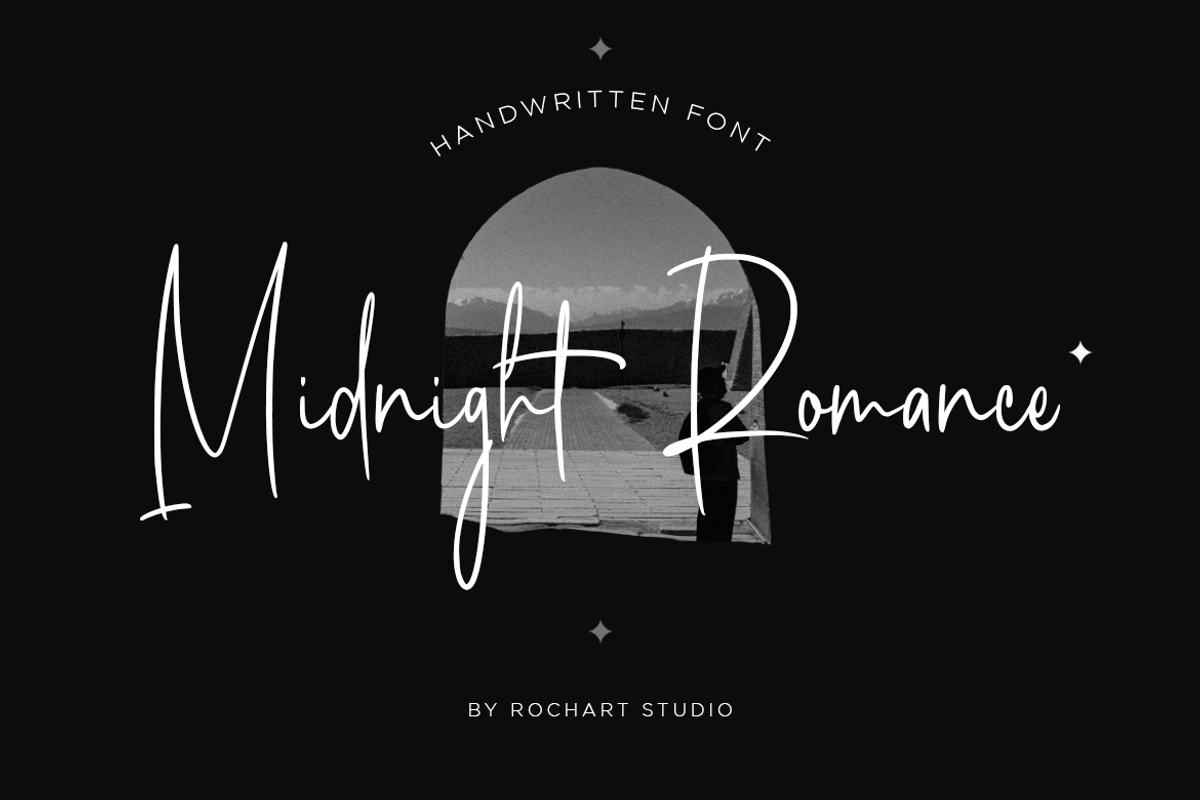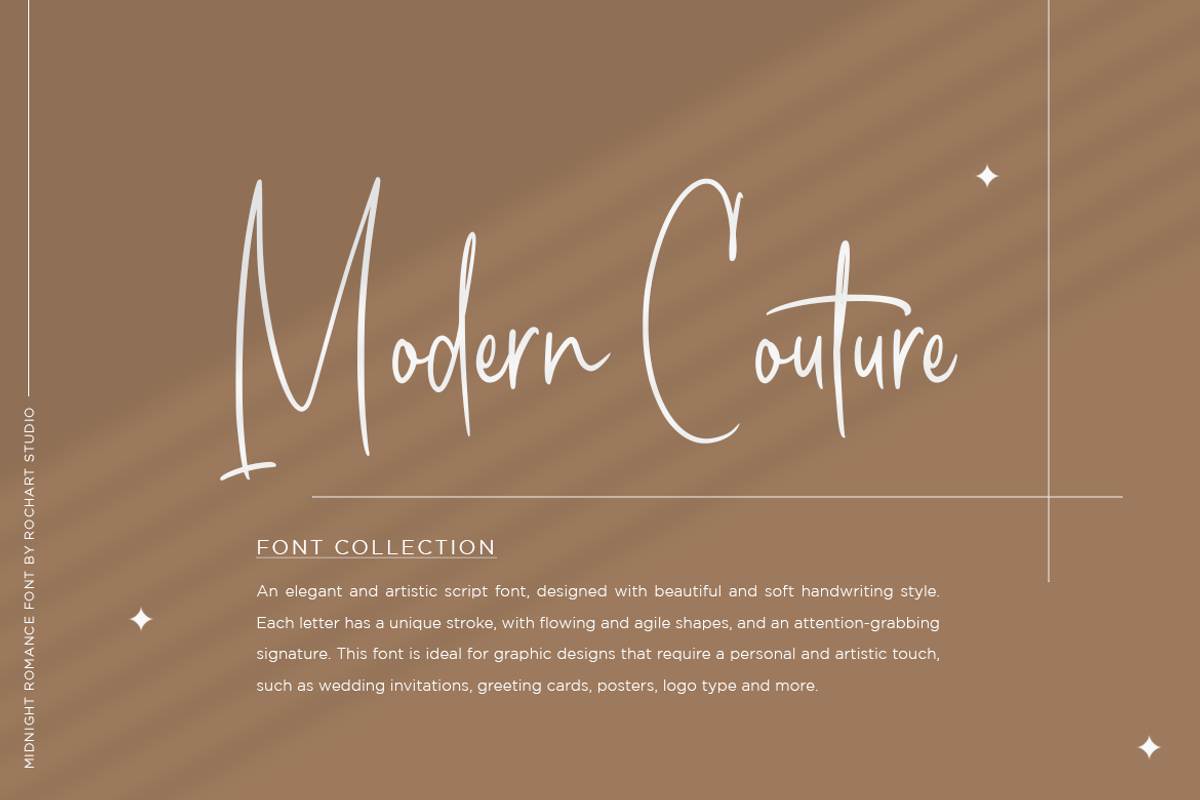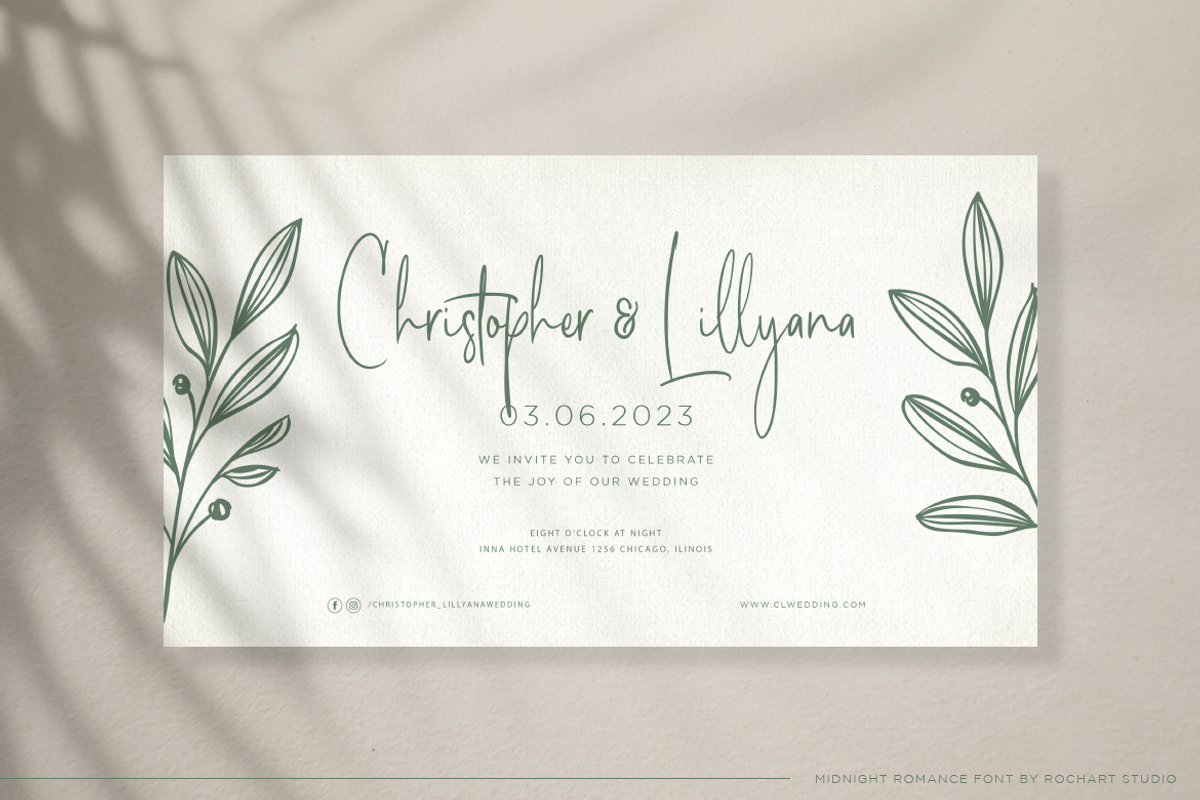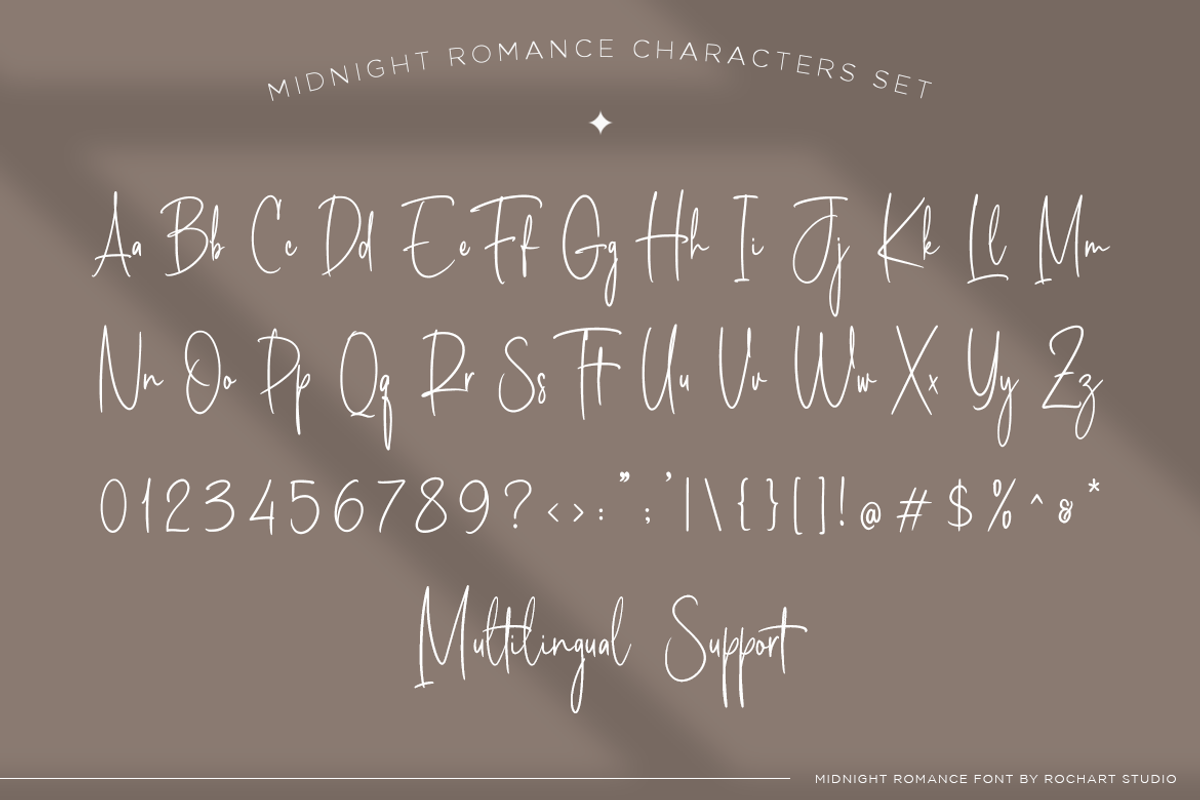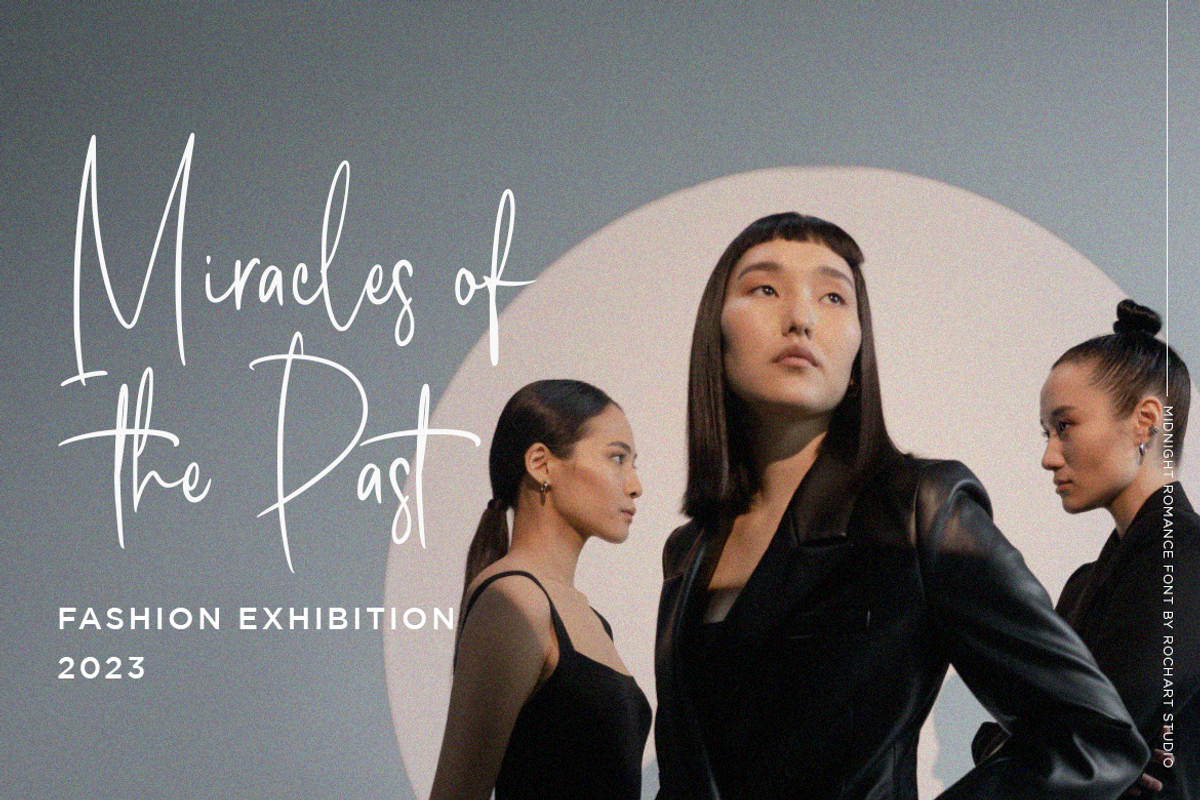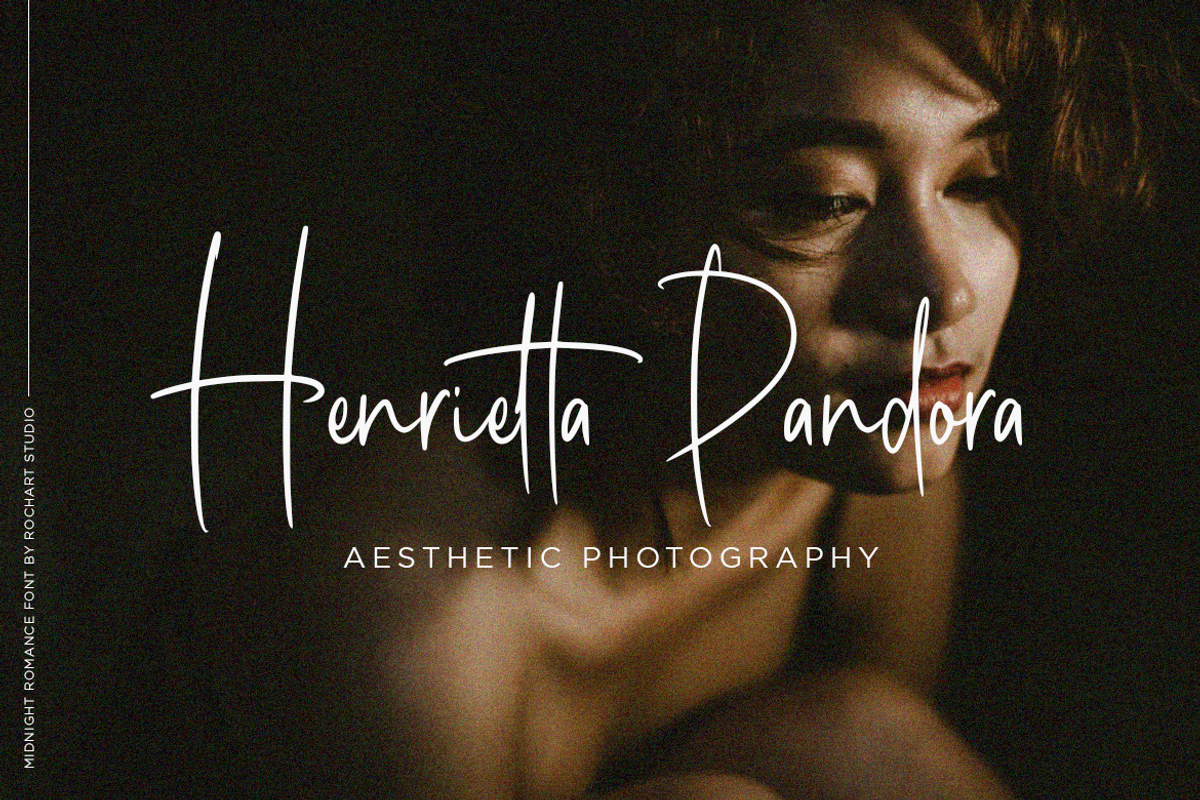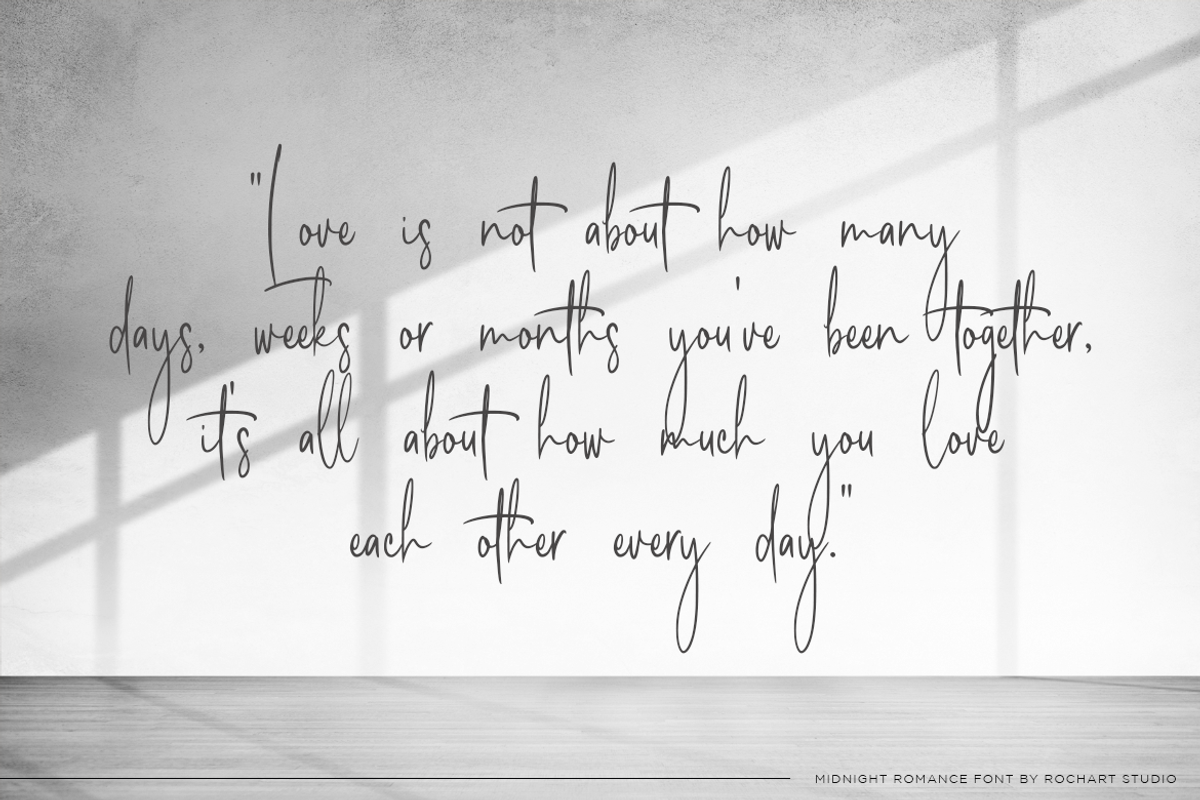
Handwritten Font | Midnight Romance
Midnight Romance is a type of handwritten font that features an elegant and romantic handwriting style. This font is perfect for designs that require a personal and feminine touch, such as wedding invitations, greeting cards, or merchandise designs.
The cursive strokes of Midnight Romance flow smoothly and gracefully, lending a touch of sophistication and charm to any design. The letters are delicately formed with an intricate attention to detail, making them ideal for designs that require a more refined and delicate look.
Overall, Midnight Romance is a beautiful-handwritten font that exudes a sense of elegance and intimacy, making it a perfect choice for any project that requires a touch of personalization and romance.